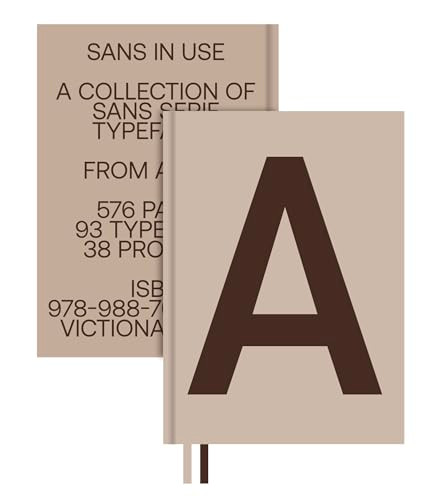
Sans in Use (Creative Typefaces and their Applications)
In the world of typography, it is not uncommon to see combinations of serif and sans serif typefaces in the same design. However, it takes skill to combine them in a way to avoid unwanted graphic tension or clashing fonts, and ensure maximum legibility of the text in the design.
From font weights to classifications, each typeface has its own distinct personality, and should be carefully paired to convey the right tone and mood of the design. Featuring a selection of type specimens, their design applications, and the thoughts that go behind the craft, Sans in Use / Serif in Use collects the best combinations of both categories and serves as a reference point for inspiration-seeking designers and typographers alike. Through examples and interviews with internationally renowned type foundries, typography designers and type experts, the future of typeface creation is laid bare.